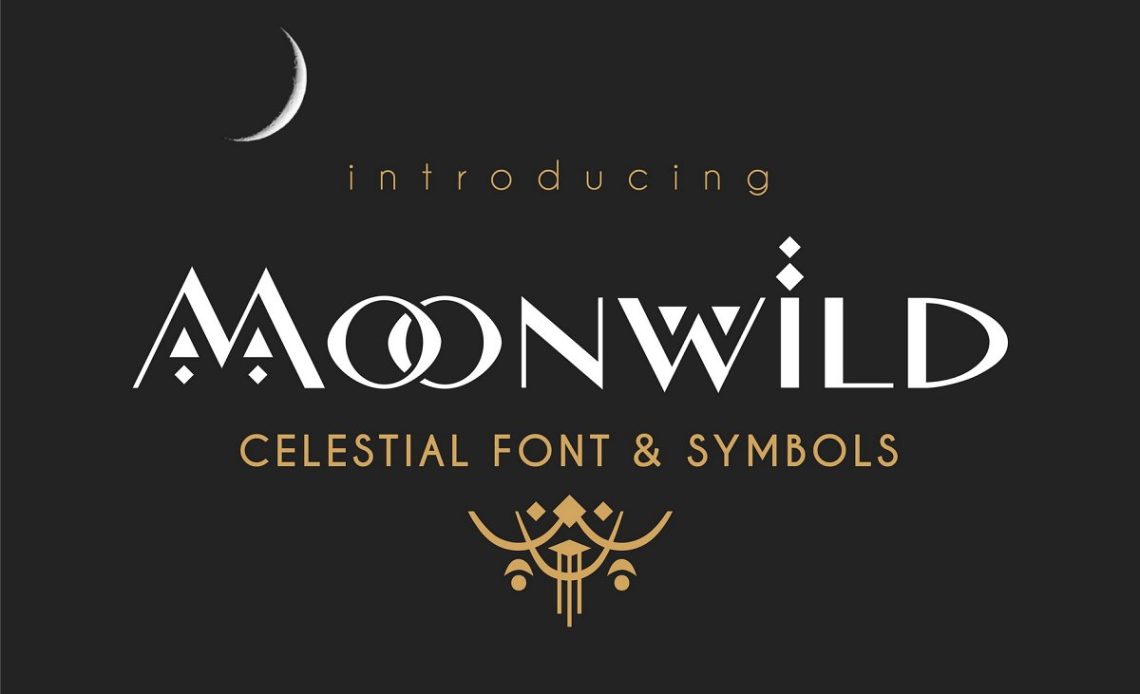
Discover the captivating allure of Moonwild - Celestial Font & Symbols, a modern sans serif font created by the talented Victoria Strukovskaya. With its celestial motives and versatile design, Moonwild is the perfect addition to your font collection.
This exquisite typeface offers both Decorative and Symbol versions, allowing you to unleash your creativity in various design programs or even without any program at all. Whether you're working on typographic prints, retro and modern posters, boho art, fashion design, or craft product branding and packaging, Moonwild will elevate your creations to new heights.
Unlock your design potential with Moonwild's stylistic alternates for symbols, featuring a c i m o q s t u v w y A C M O Q S T U V W Y. Additionally, you'll find ligatures like ch, ck, la, La, LA, aa, oo, Ca, ca, and OO, allowing you to create unique and eye-catching logos and monograms.